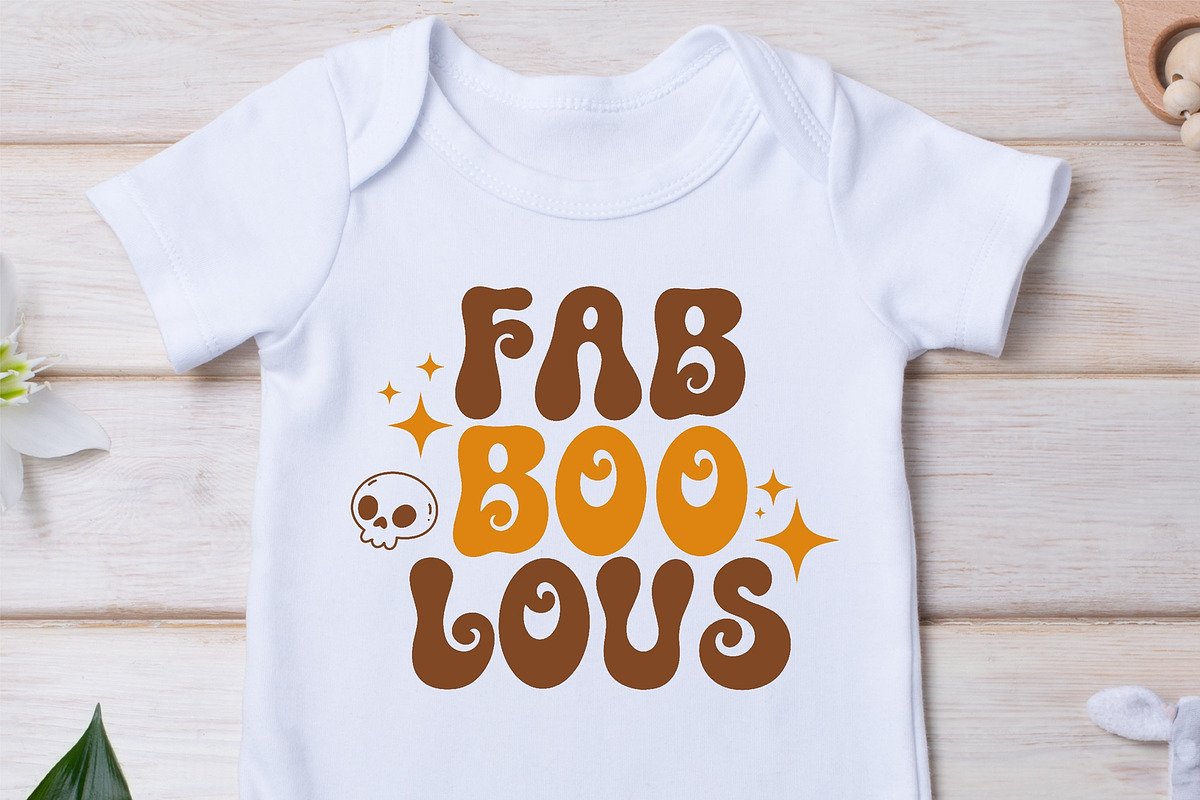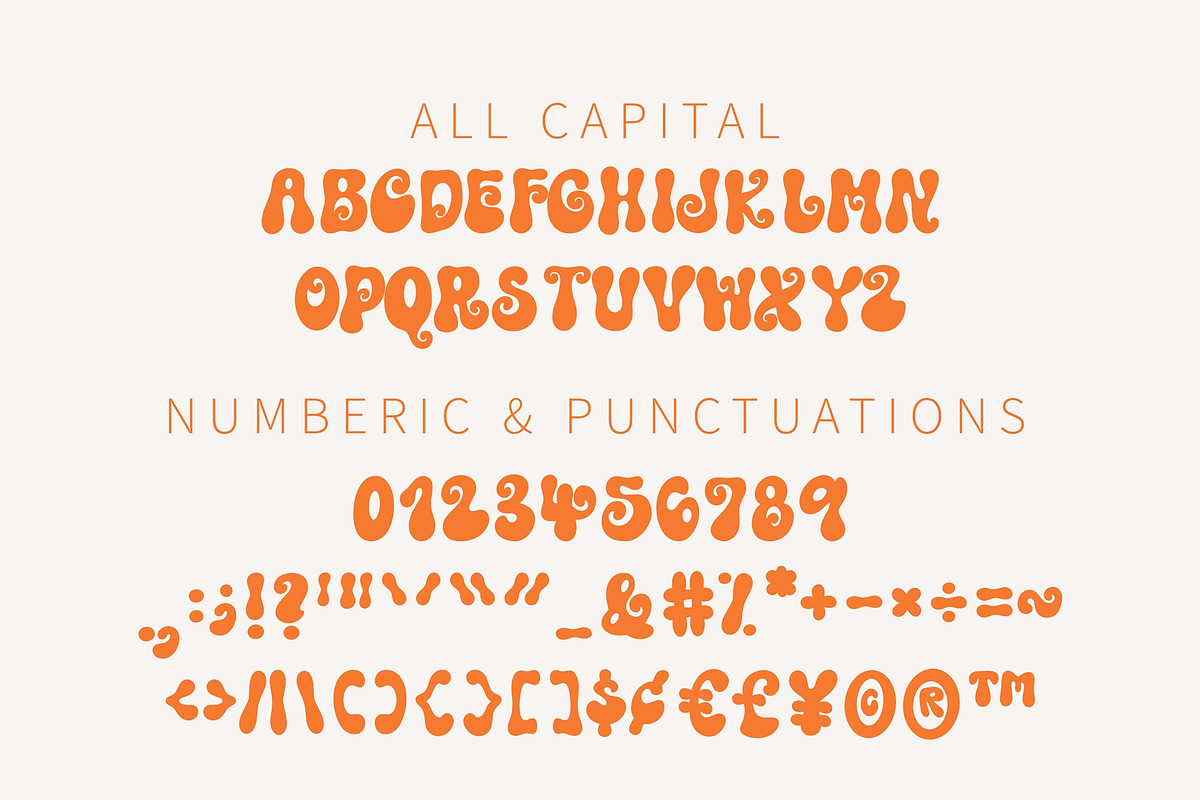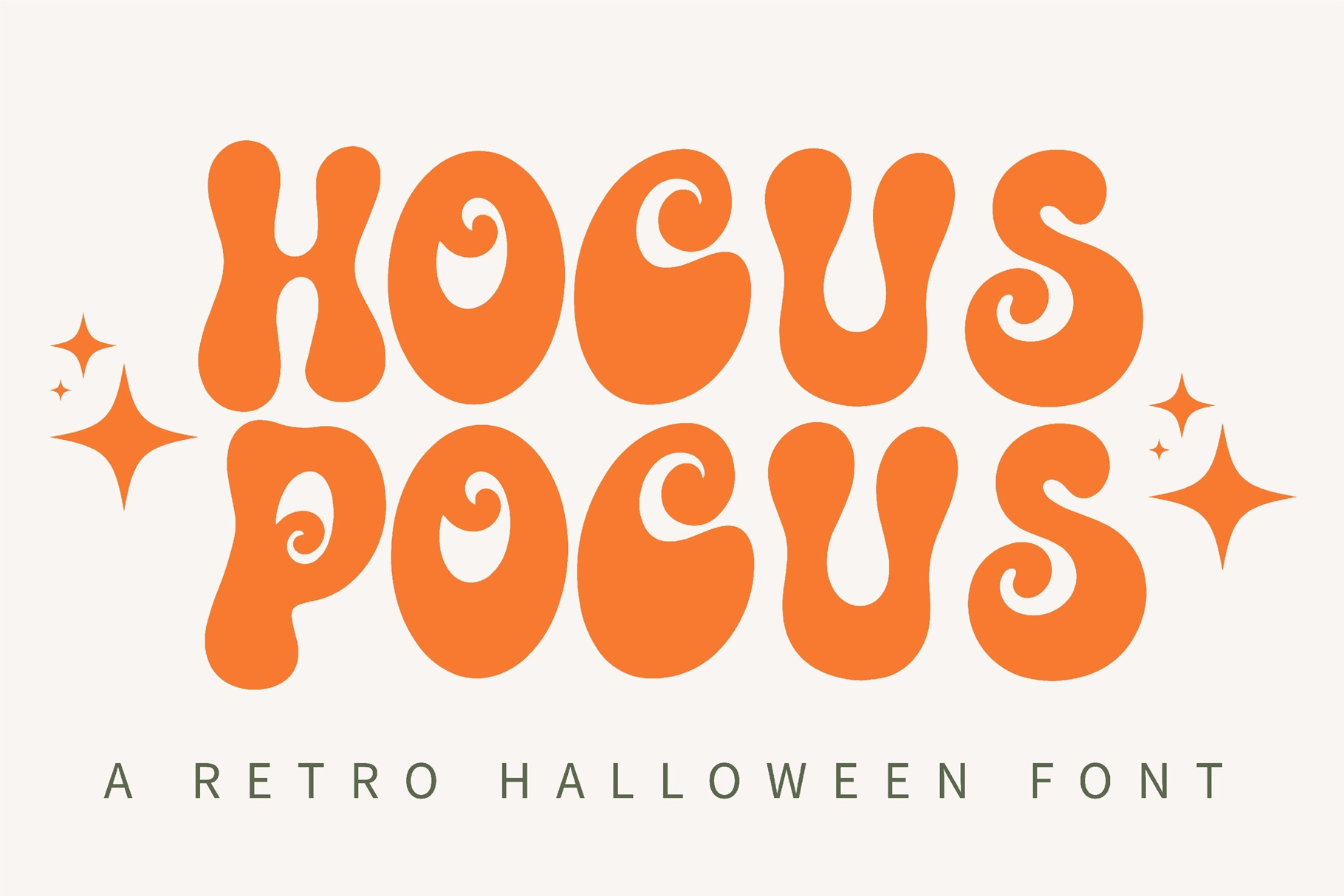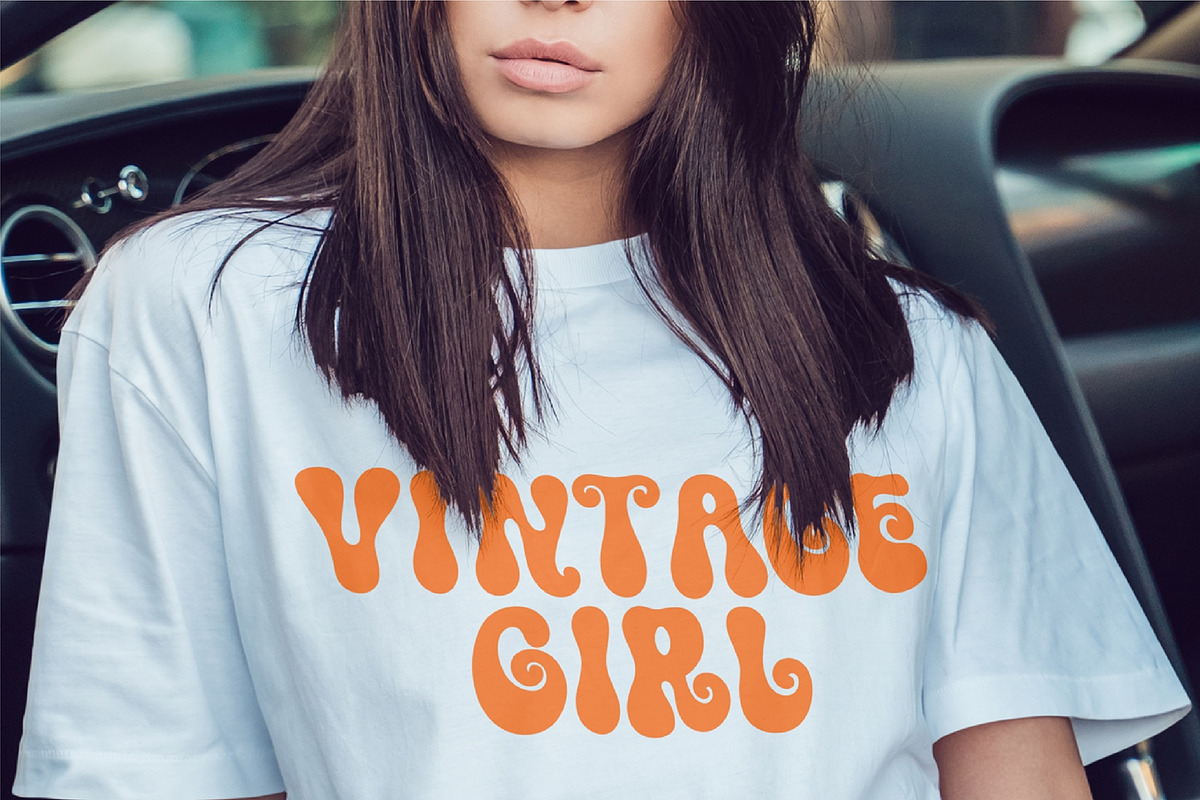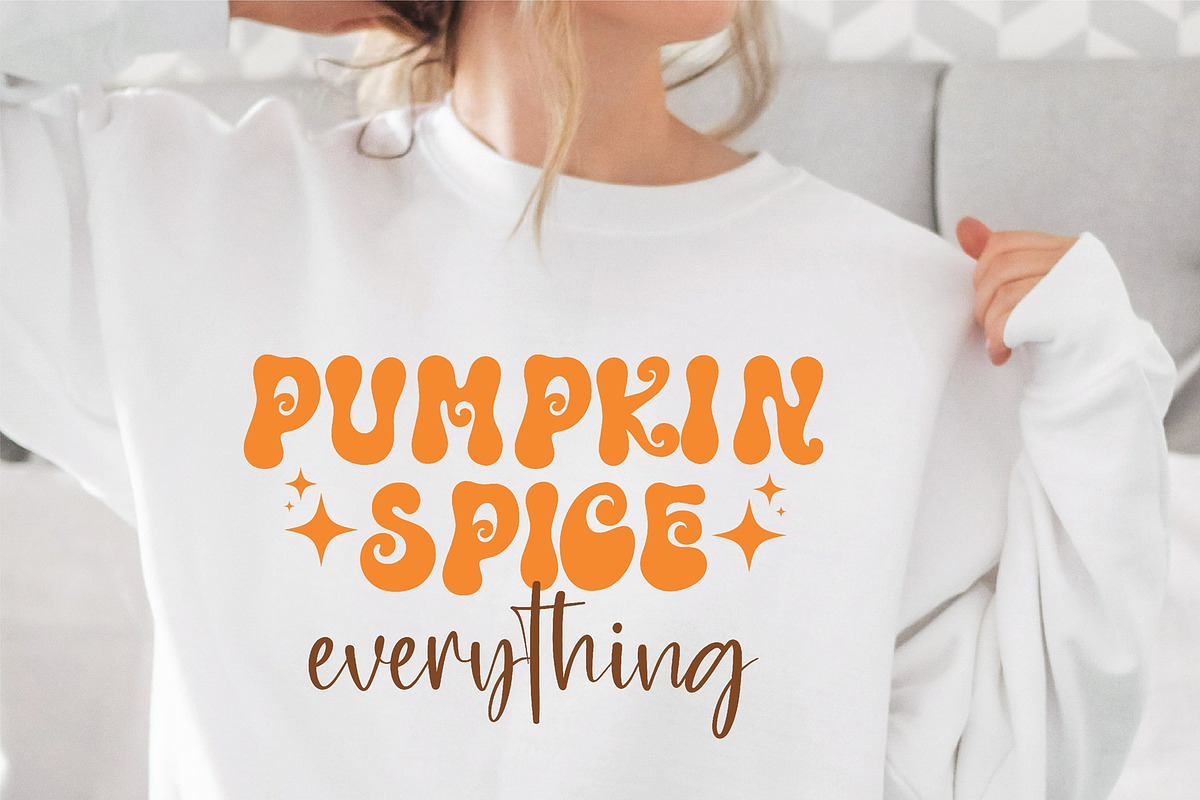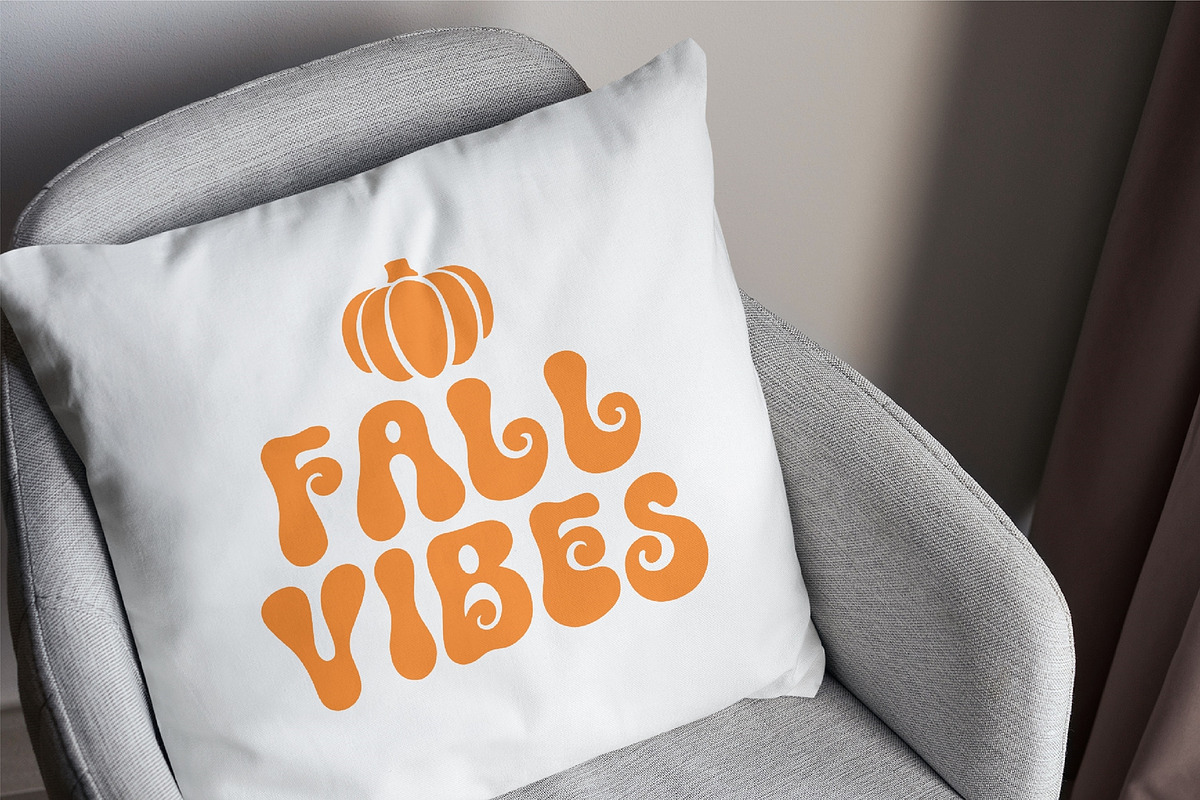
Hocus Pocus - Retro Halloween font
Hocus Pocus is a retro and fun display font. It is perfect for any hippie Halloween design that requires a groovy look.